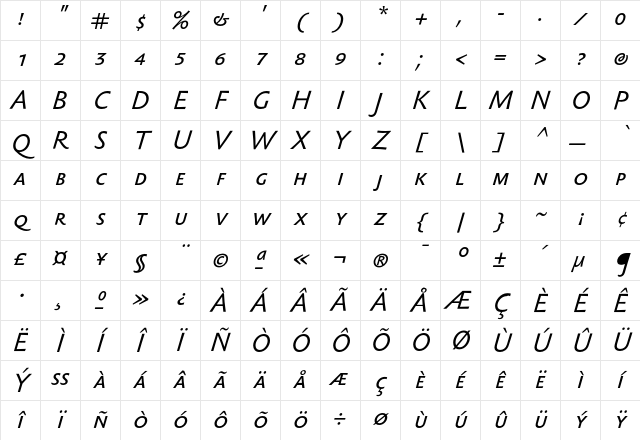
Sebastian Text SC Italic
Foundry: Frantisek Storm, www.stormtype.com
Design Context for Sebastian Text SC
Sebastian Text SC is a composed and adaptable typeface that performs quietly and consistently across a wide range of design contexts. The slanted form adds forward momentum and visual energy.
Pro Tip: Use Sebastian Text SC for emphasis, pull quotes, and subheadings where its slanted energy can add rhythm to the layout.